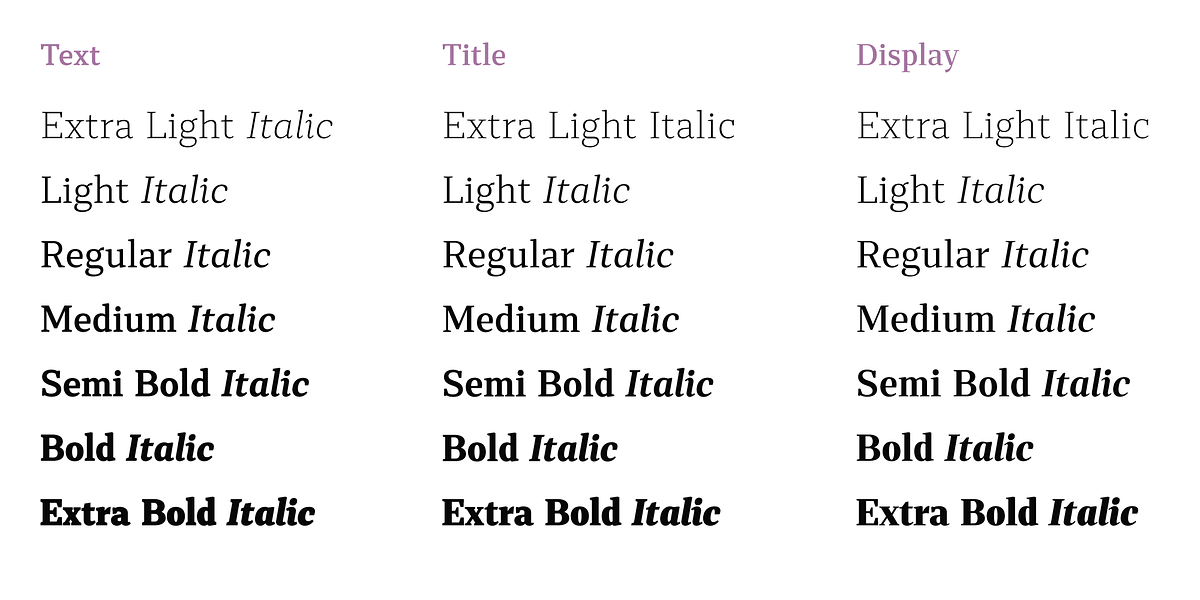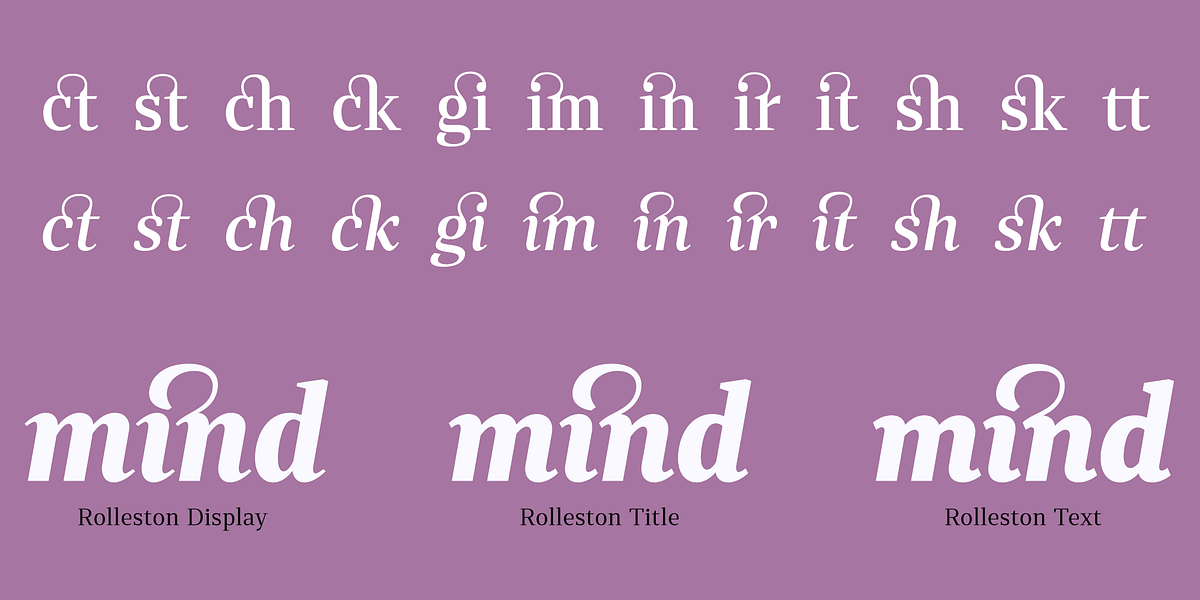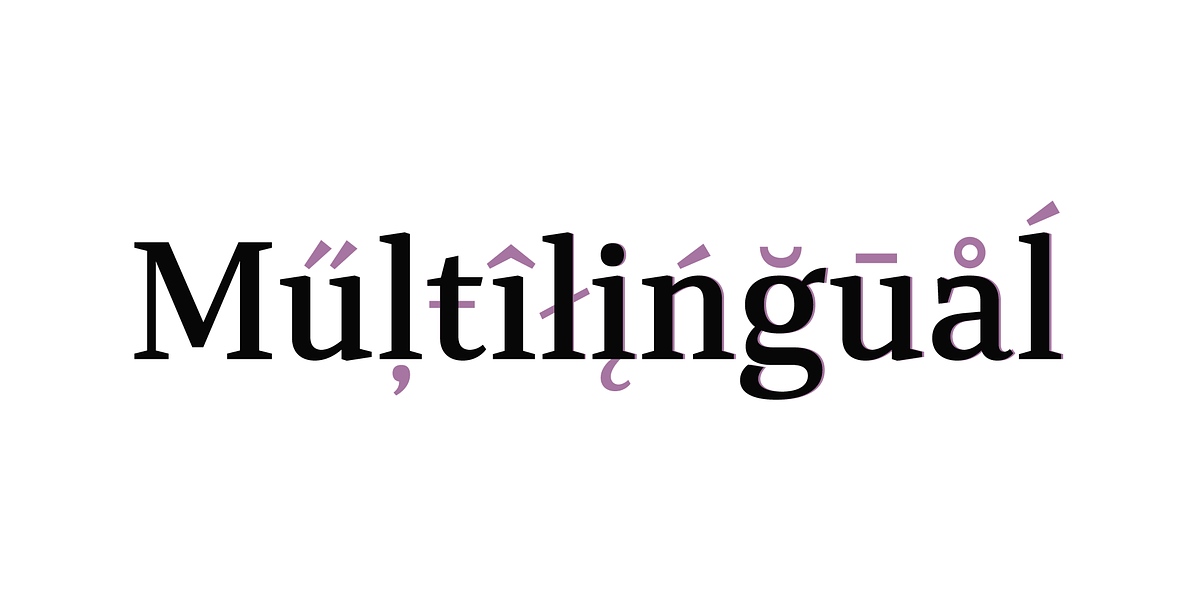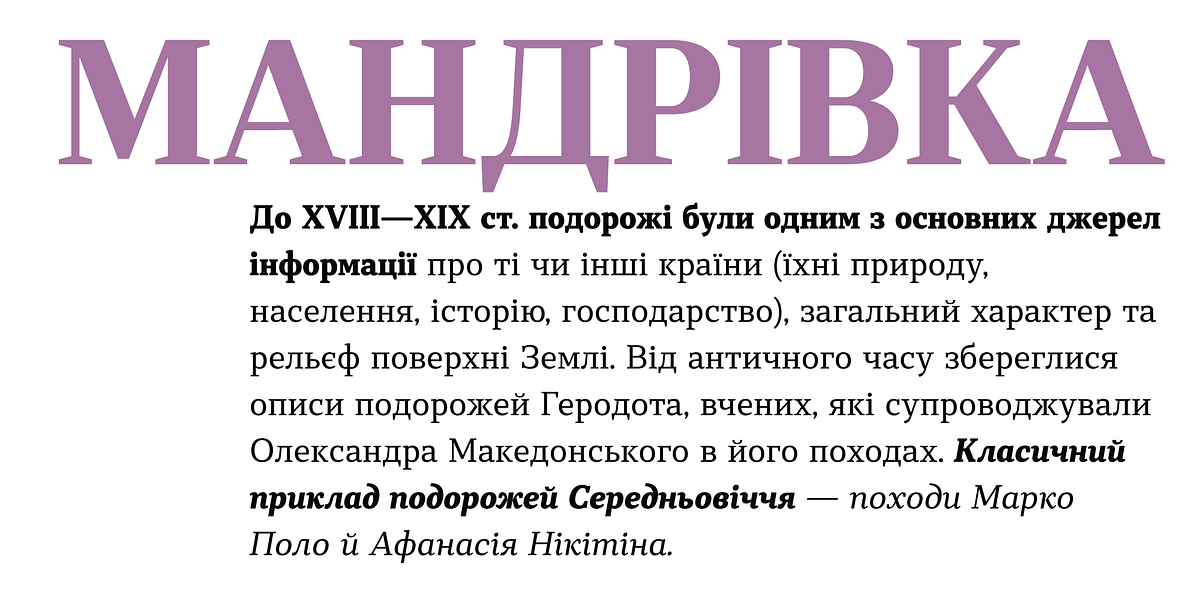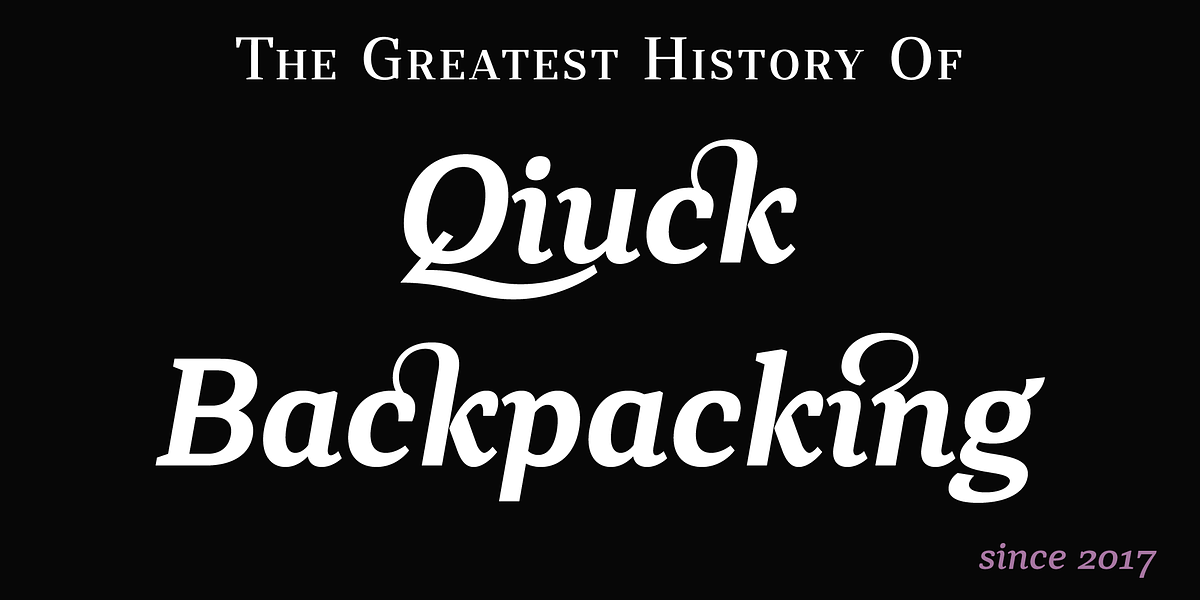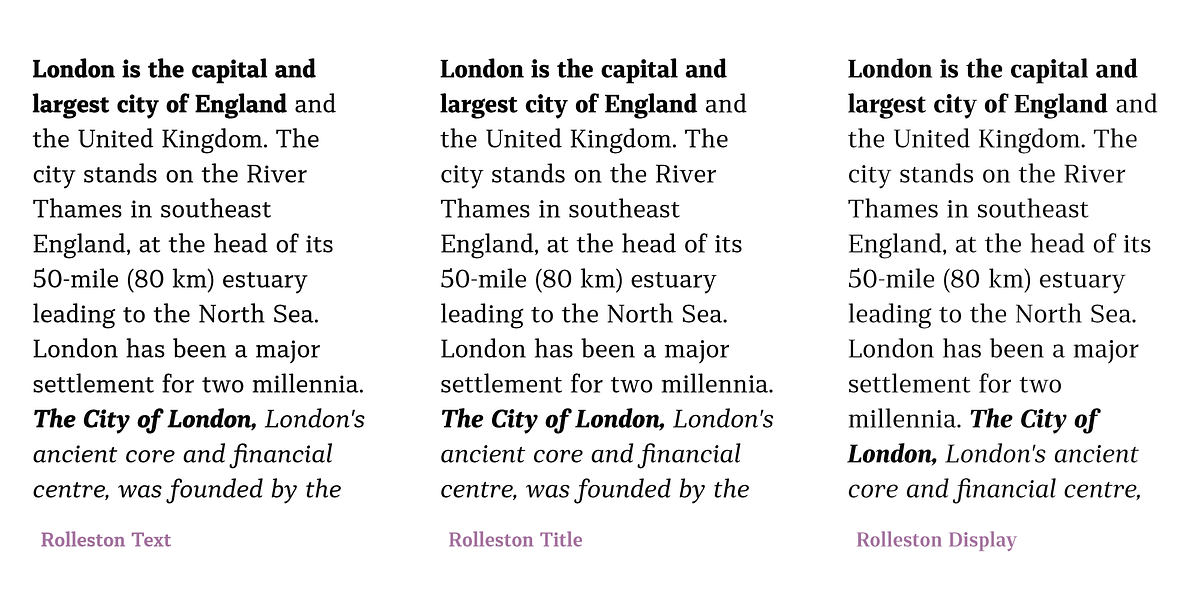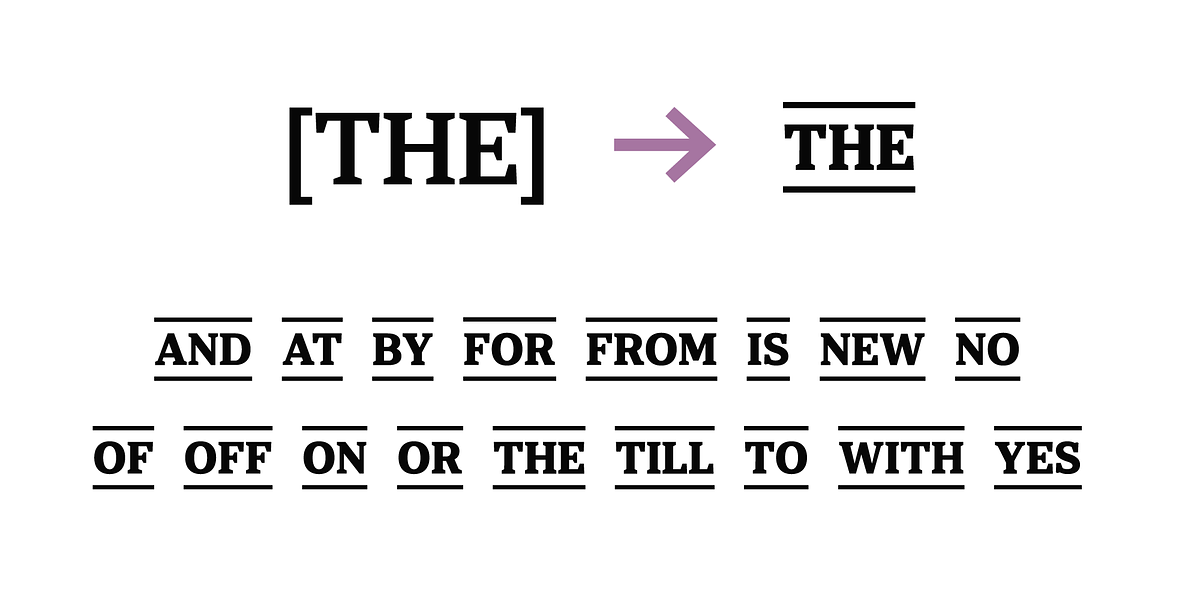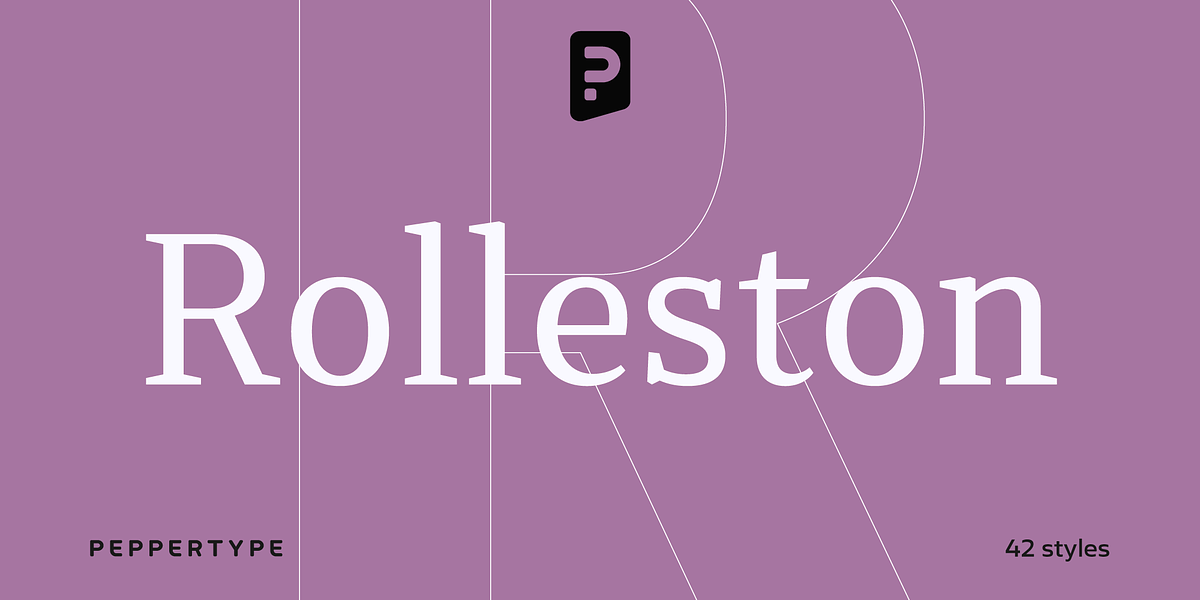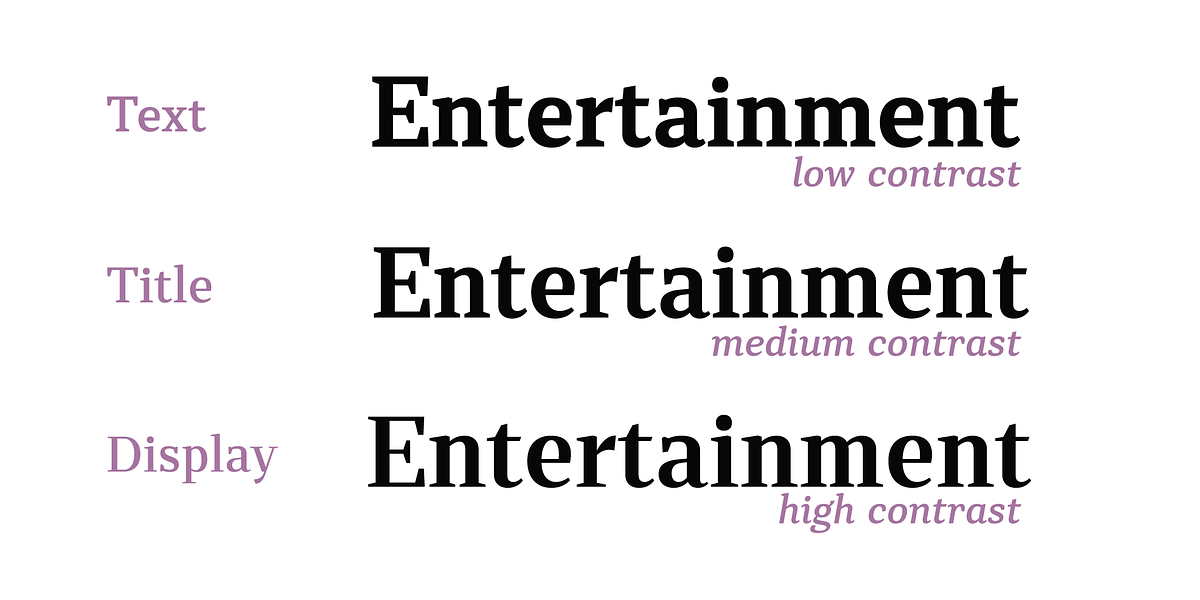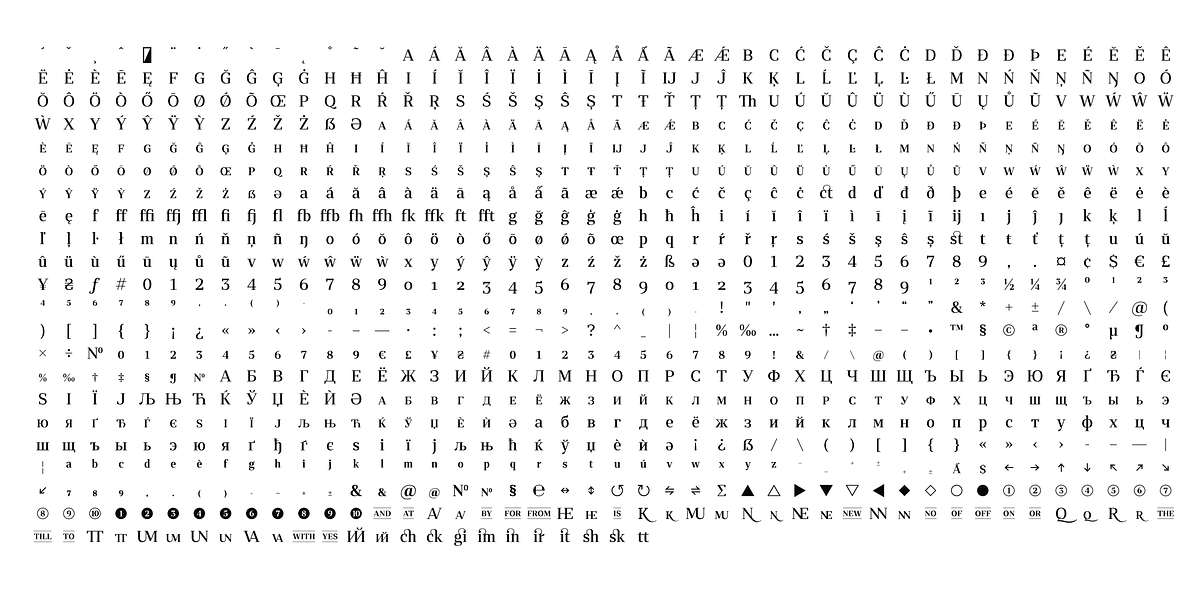
Rolleston
Rolleston is an old style serif font characterized by its unique spiky serifs. It comes in three optical sizes: Text, Title, and Display. This font family offers extensive language support including Cyrillic and features a variety of OpenType features such as ligatures and alternative characters. This makes Rolleston suitable for both elegant body text and eye-catching headlines.